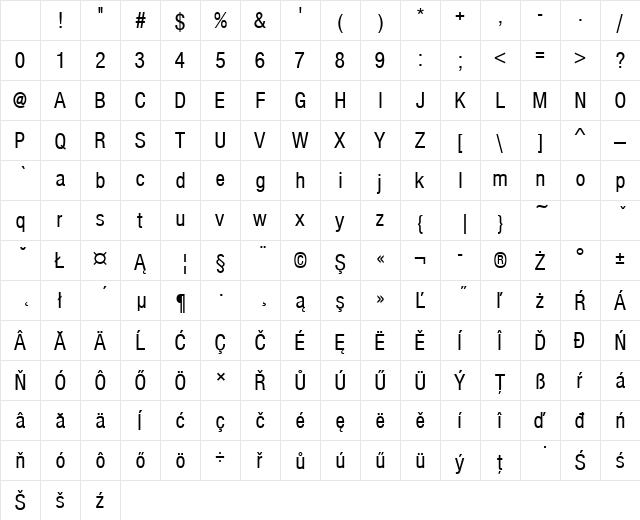
Complete NimbusSanPEECon Regular glyph index. Displaying only characters natively supported by NimbusSanPEECon Regular font.
NimbusSanPEECon is a composed and adaptable typeface that performs quietly and consistently across a wide range of design contexts.